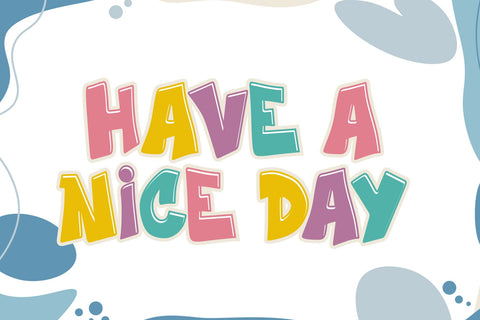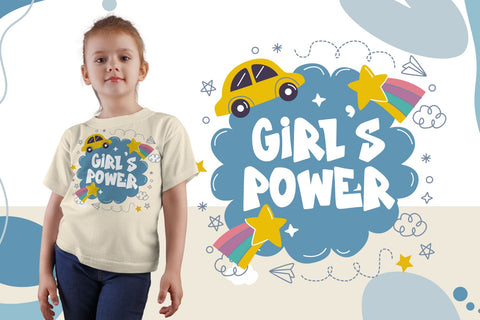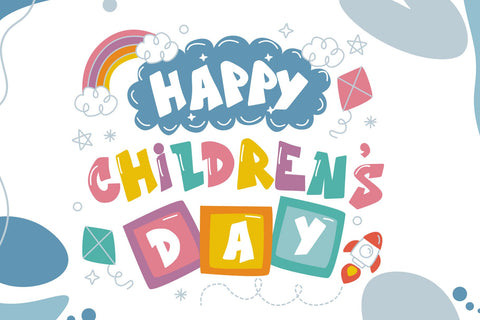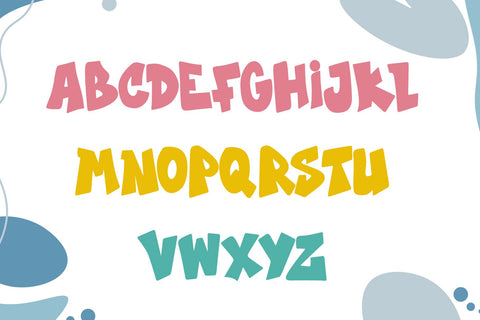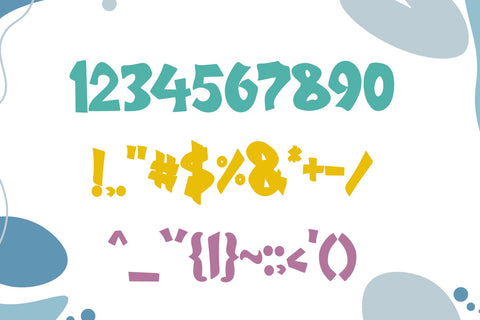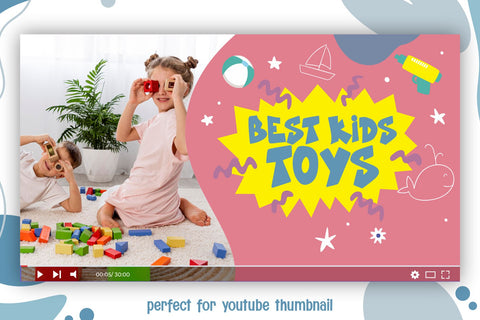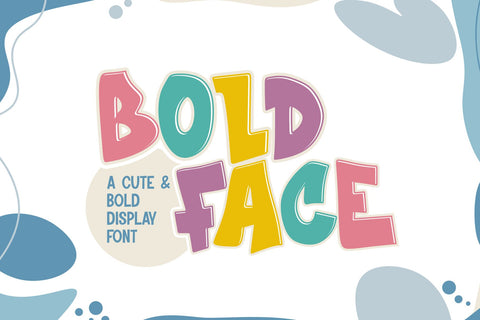
Boldface - A cute & Bold Display Font
"Boldface" is a charming and thick display font, specifically designed to add a touch of cuteness and playfulness to any kids or baby project. Its rounded, chunky characters create a friendly and inviting look that is perfect for a wide range of applications, including children's books, nursery decor, toy packaging, birthday invitations, and educational materials. The whimsical style of "Boldface" ensures that your designs capture the joyful and innocent essence of childhood, making them more appealing and engaging for young audiences. Whether you're creating a fun classroom poster or a vibrant storybook, "Boldface" provides the perfect balance of readability and charm to bring your ideas to life.